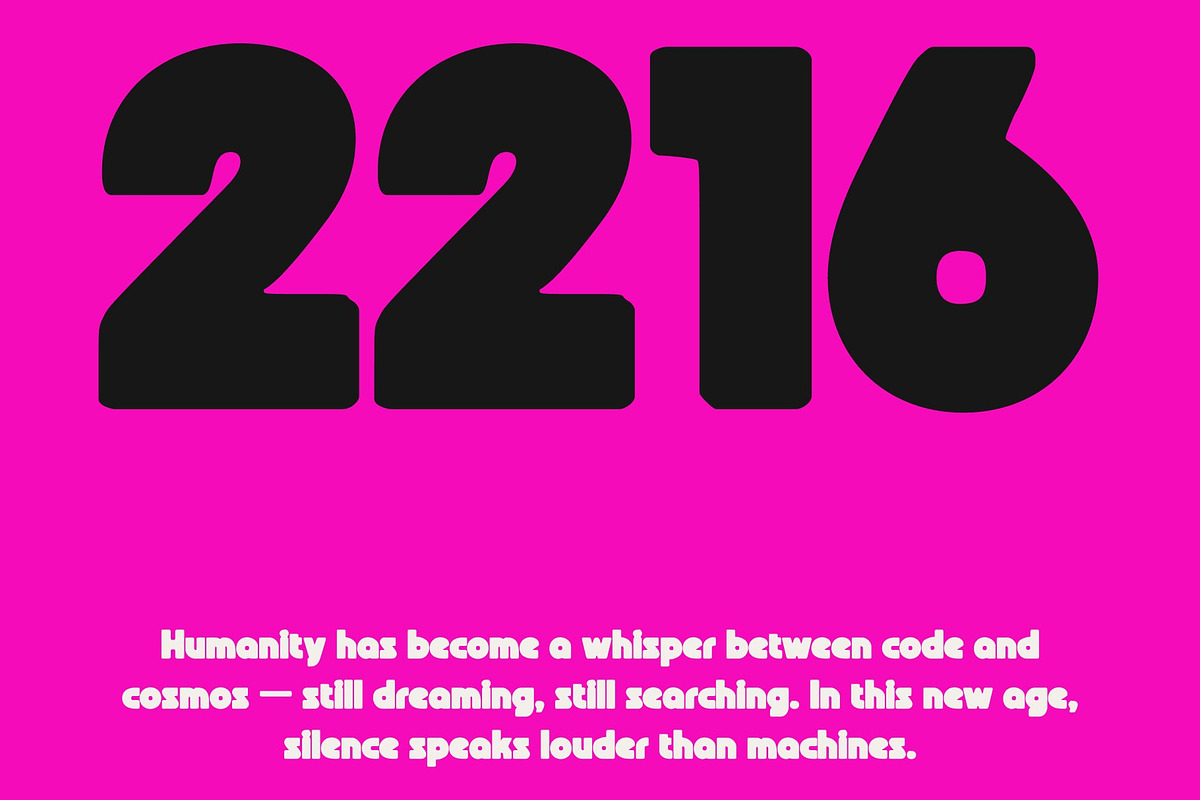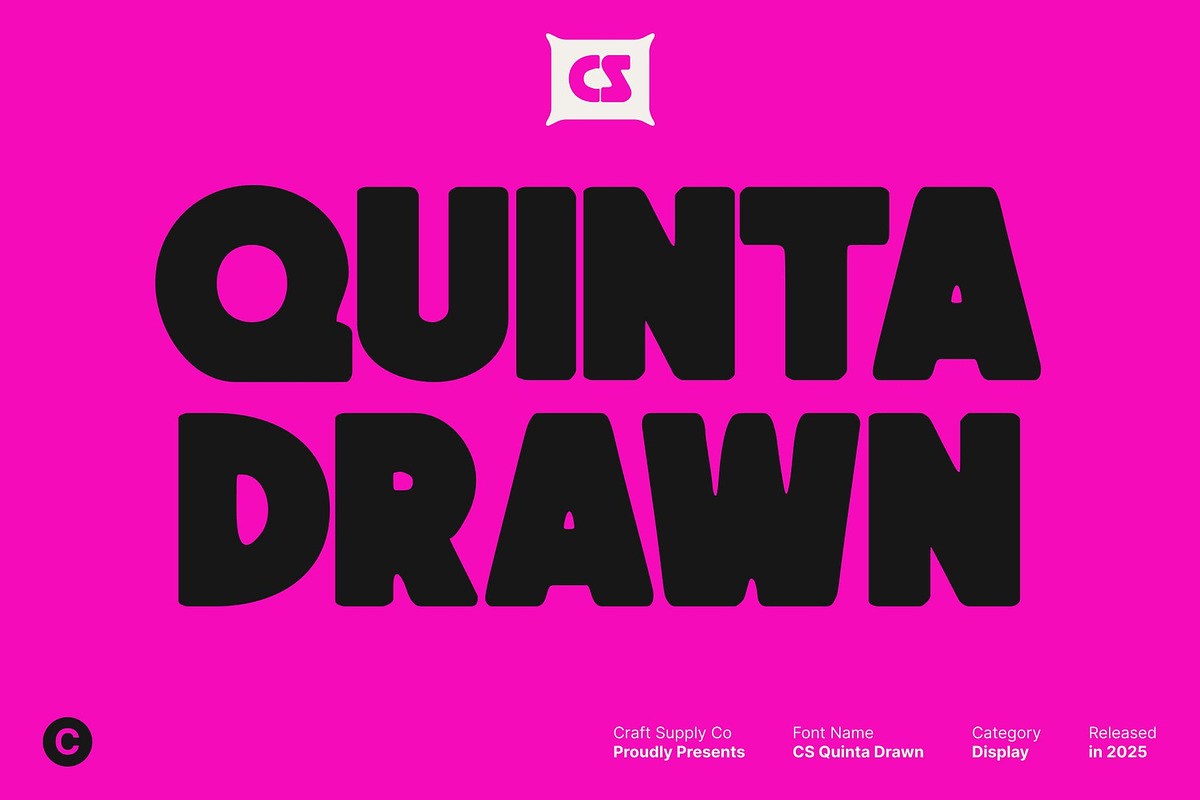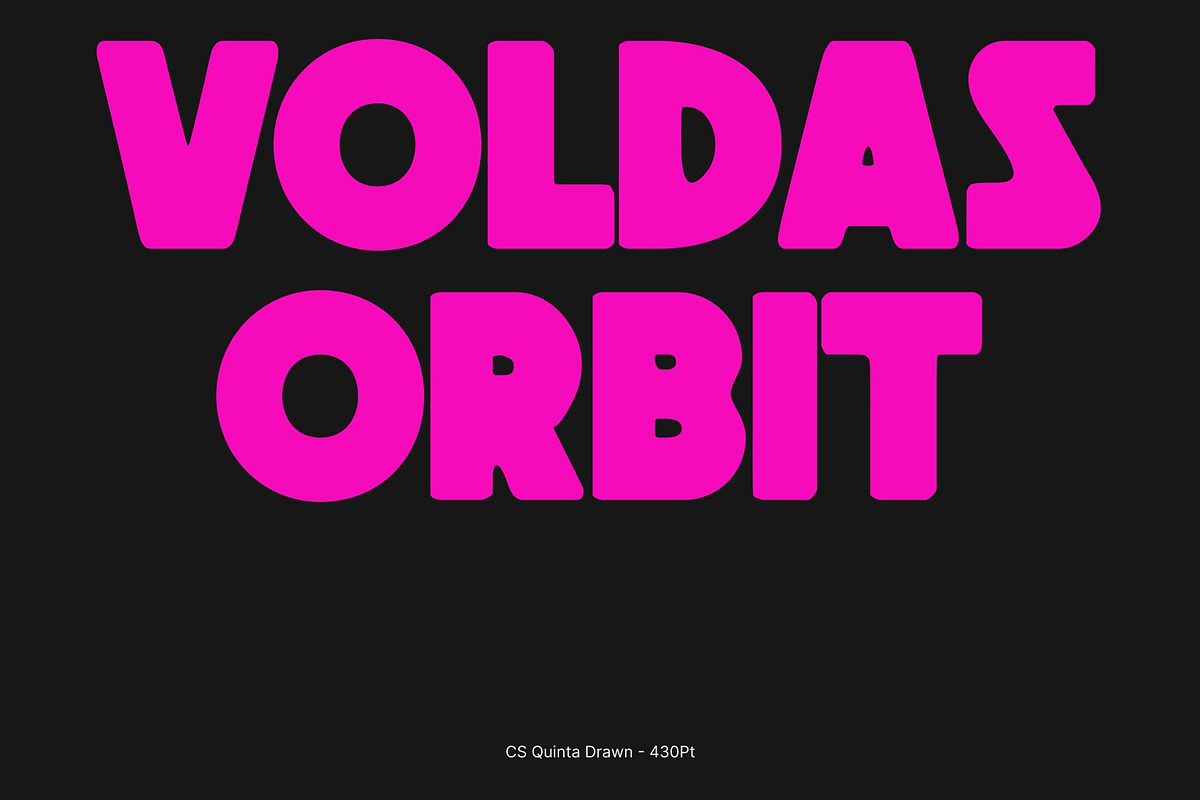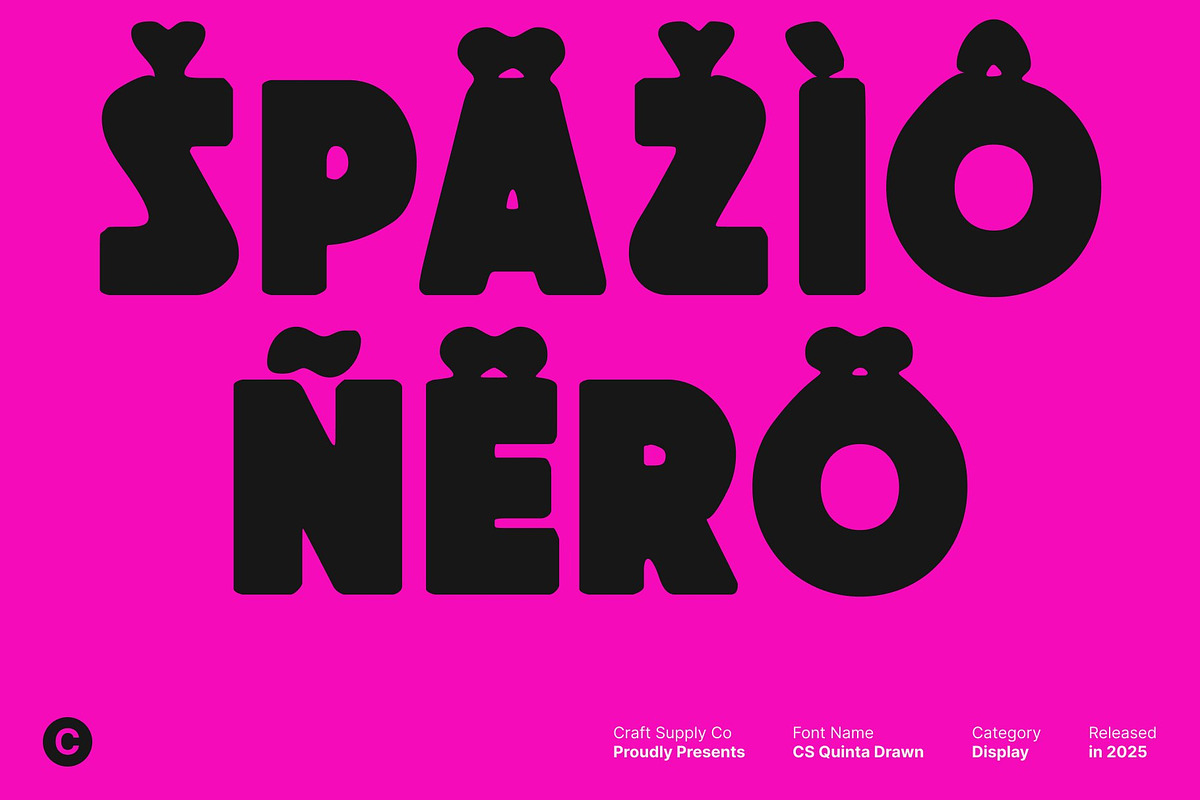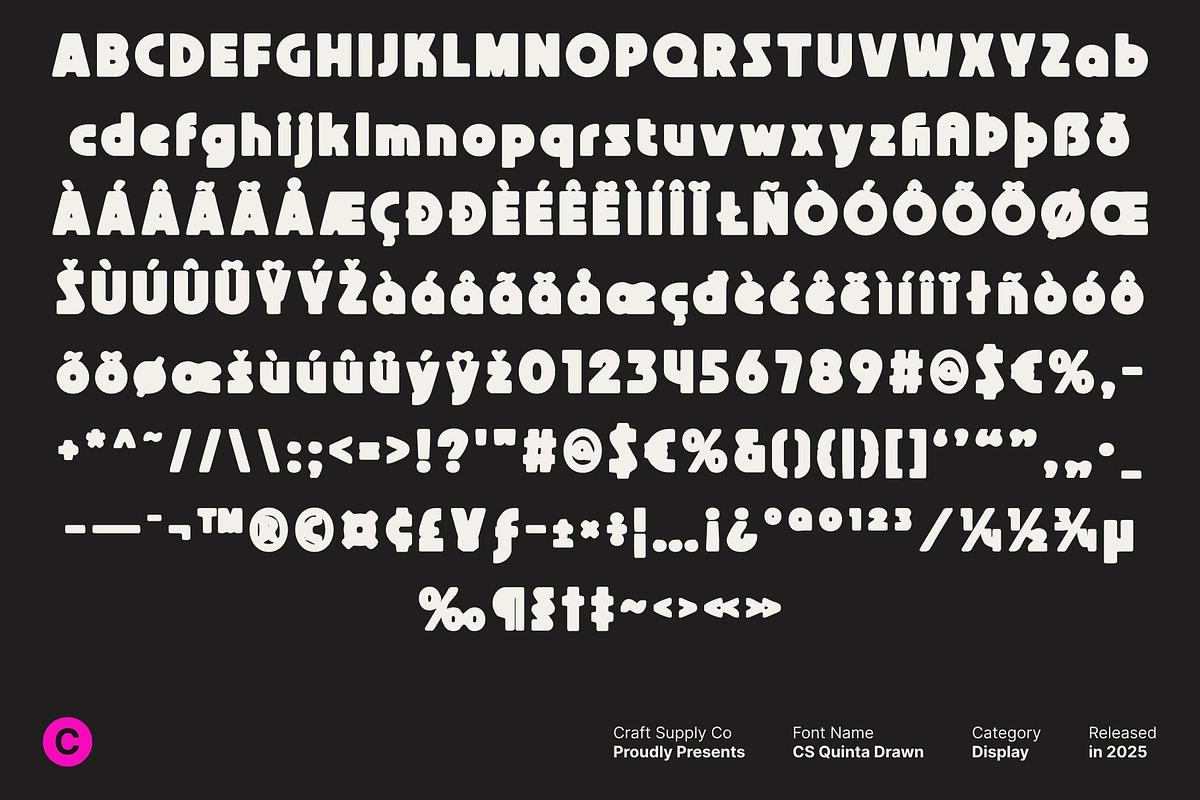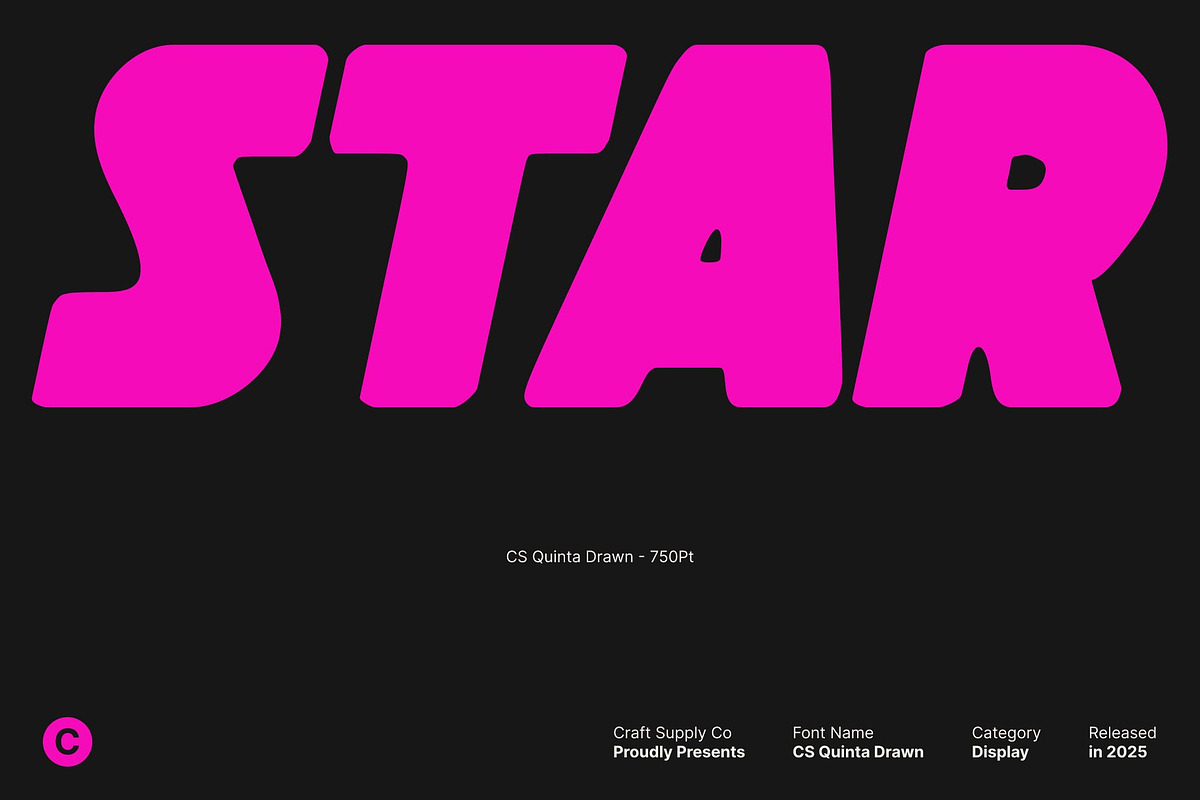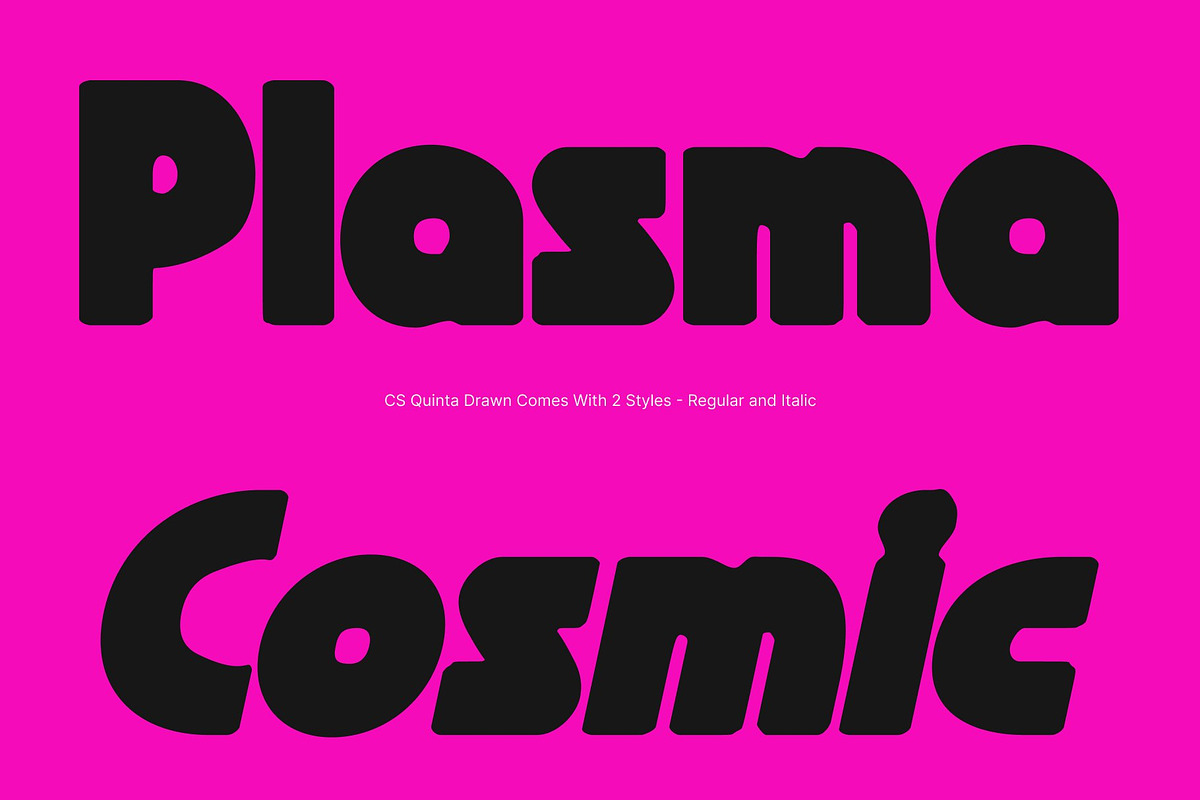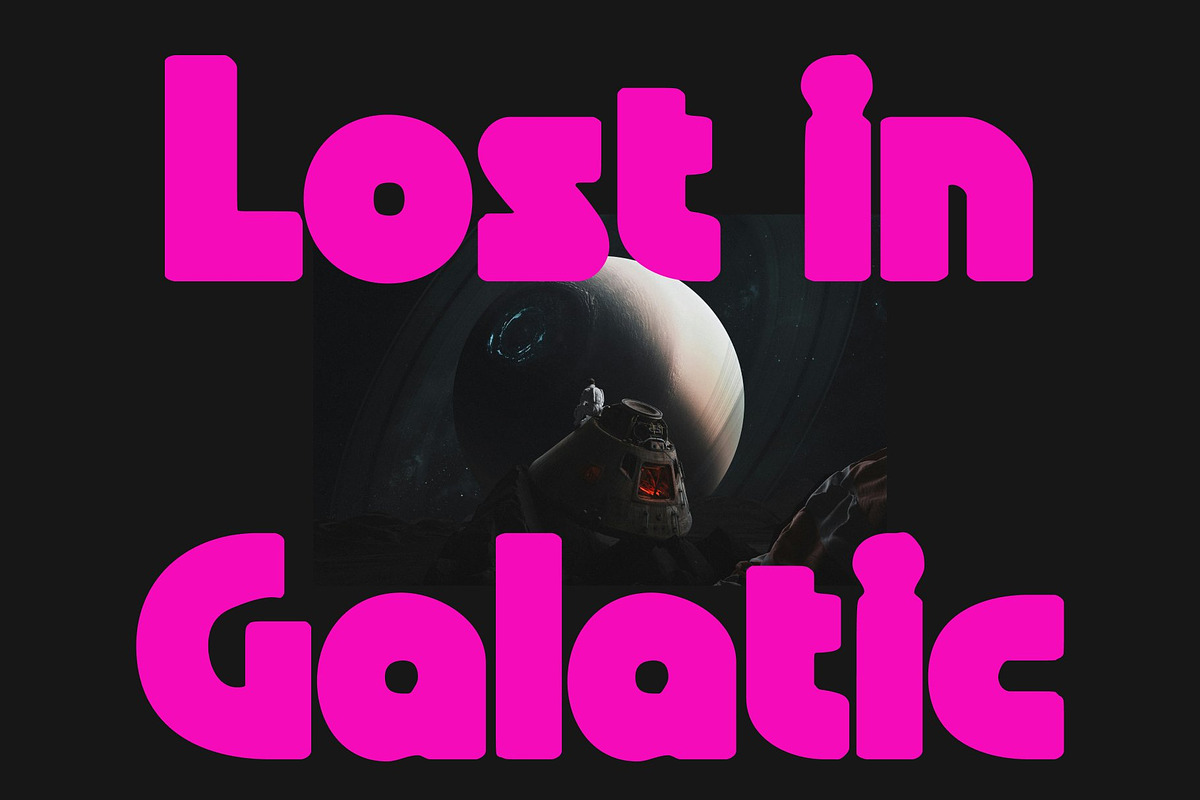
CS Quinta Drawn
CS Quinta Drawn – Bold Sans-Serif with Techno Energy and Funky Flair
Bold Modern Sans-Serif with Techno Character This is a bold, contemporary sans-serif font that combines clean, geometric forms with a futuristic, techno-inspired aesthetic. Its strong, structured letterforms convey clarity and impact, while the subtle hand-drawn texture adds an organic, handcrafted feel that gives the font unique personality.
Funky, Expressive Energy Beyond its bold foundation, this font introduces playful, funky details that make each character lively and memorable. The drawn effect infuses the typeface with energy and originality, ensuring designs stand out and convey a modern, dynamic character.
Perfect for Creative and High-Impact Design Ideal for posters, logos, branding, and headlines, this font brings modernity, energy, and visual excitement to any project. Its combination of boldness and handcrafted detailing allows it to make a strong statement while maintaining artistic appeal and individuality.
Balanced Boldness and Readability Despite its striking presence, this font maintains excellent readability and clean proportions. This versatile font delivers high-impact designs without sacrificing clarity, making it perfect for designers seeking a bold, energetic, and visually distinctive typeface that stands out across digital and print media.